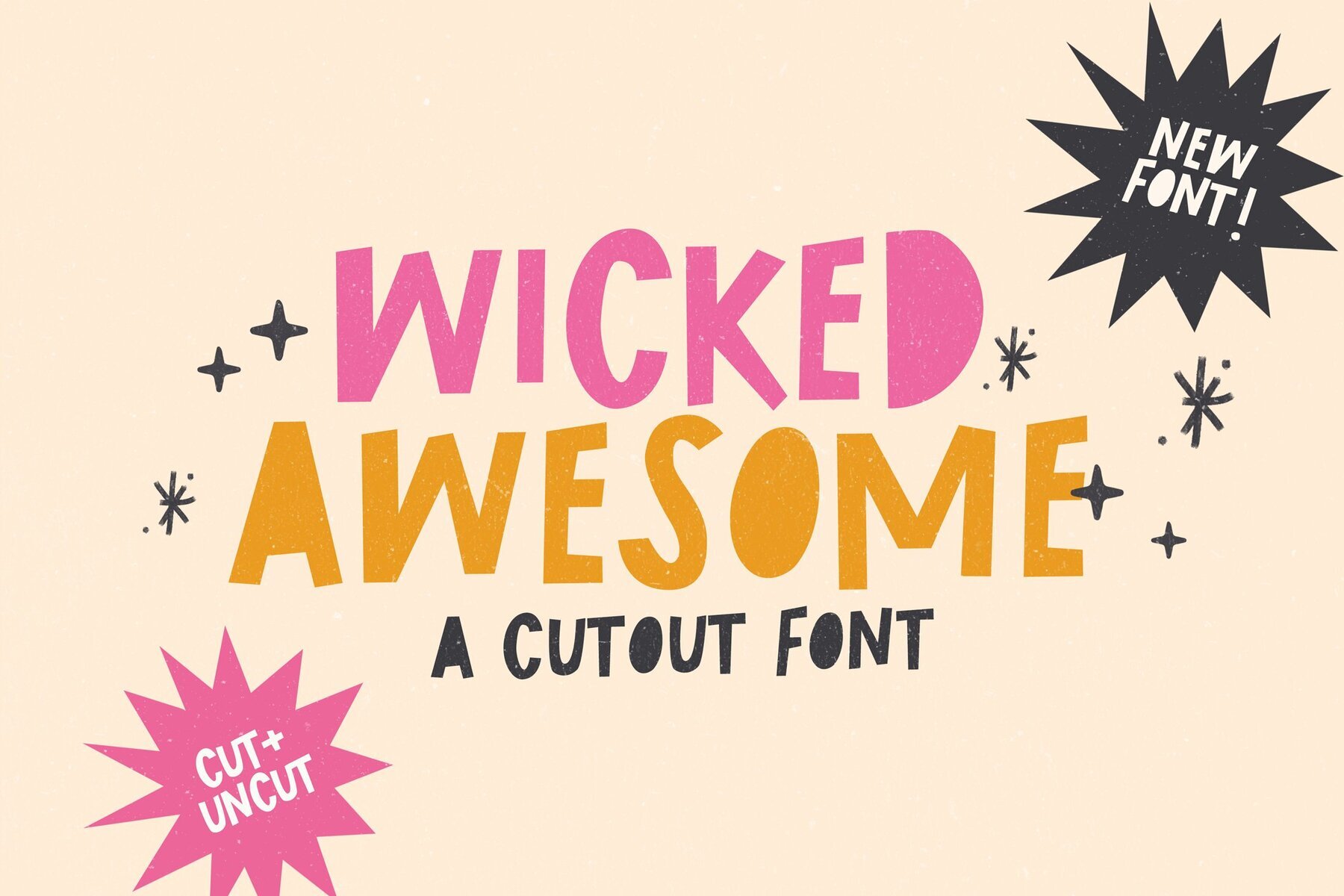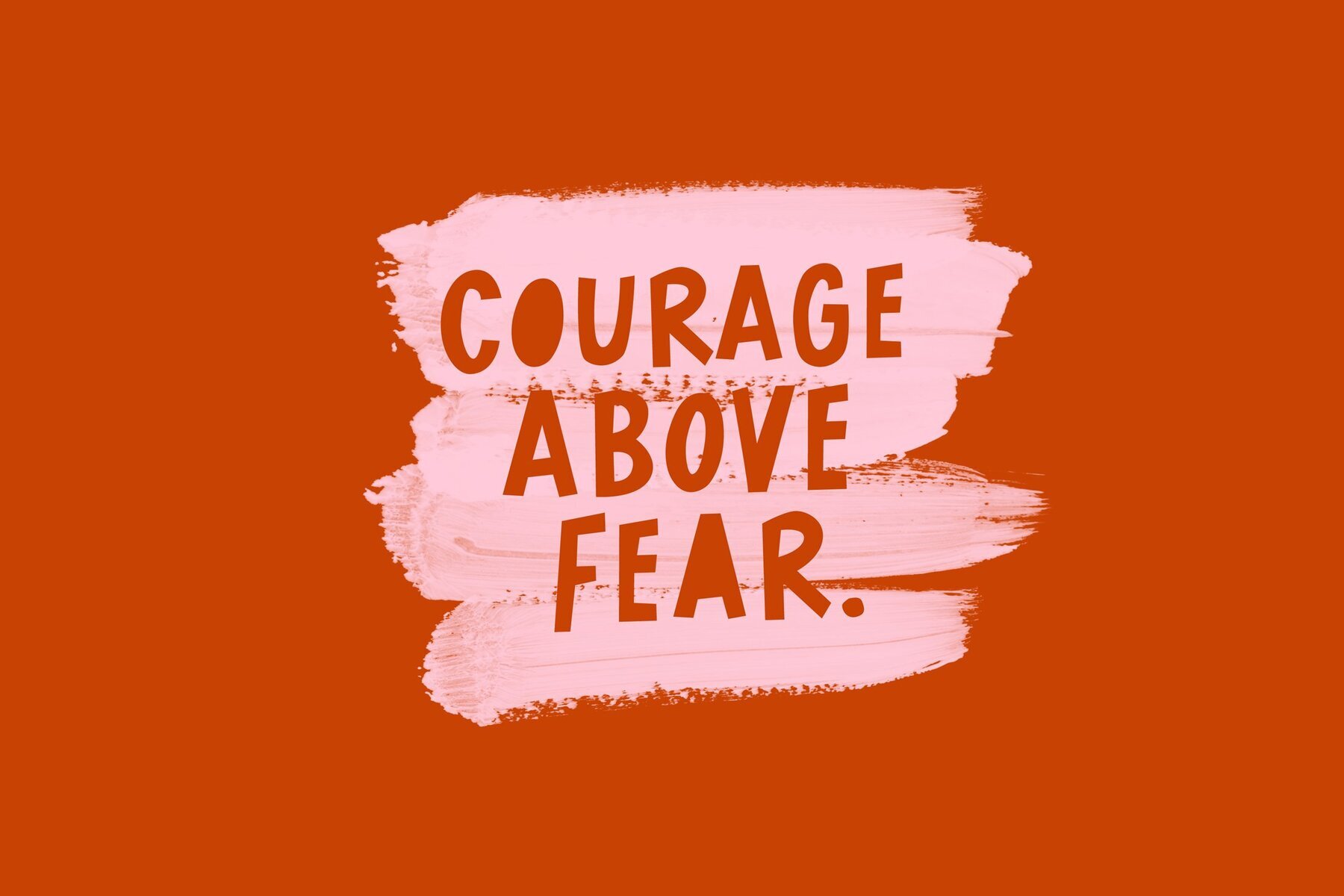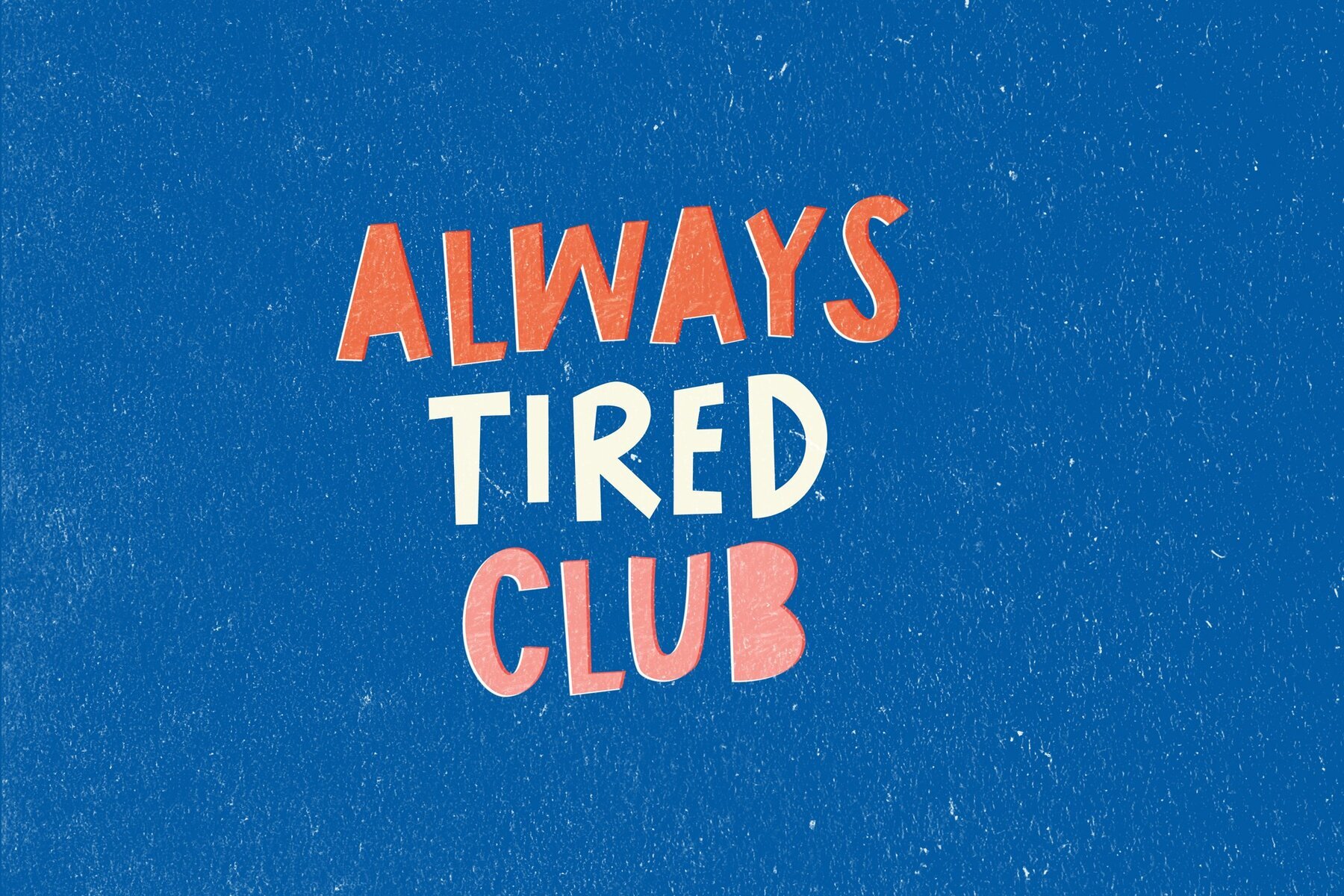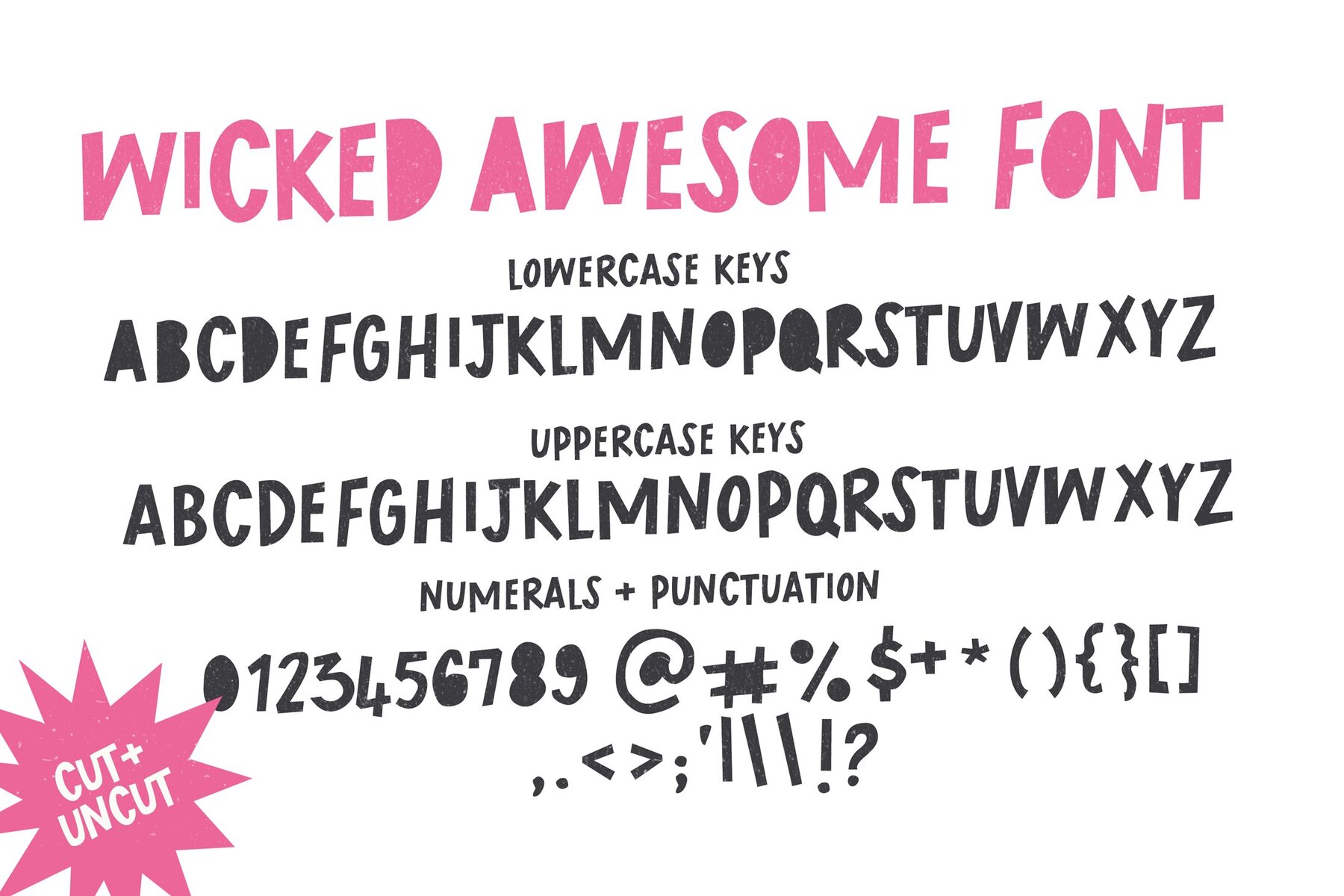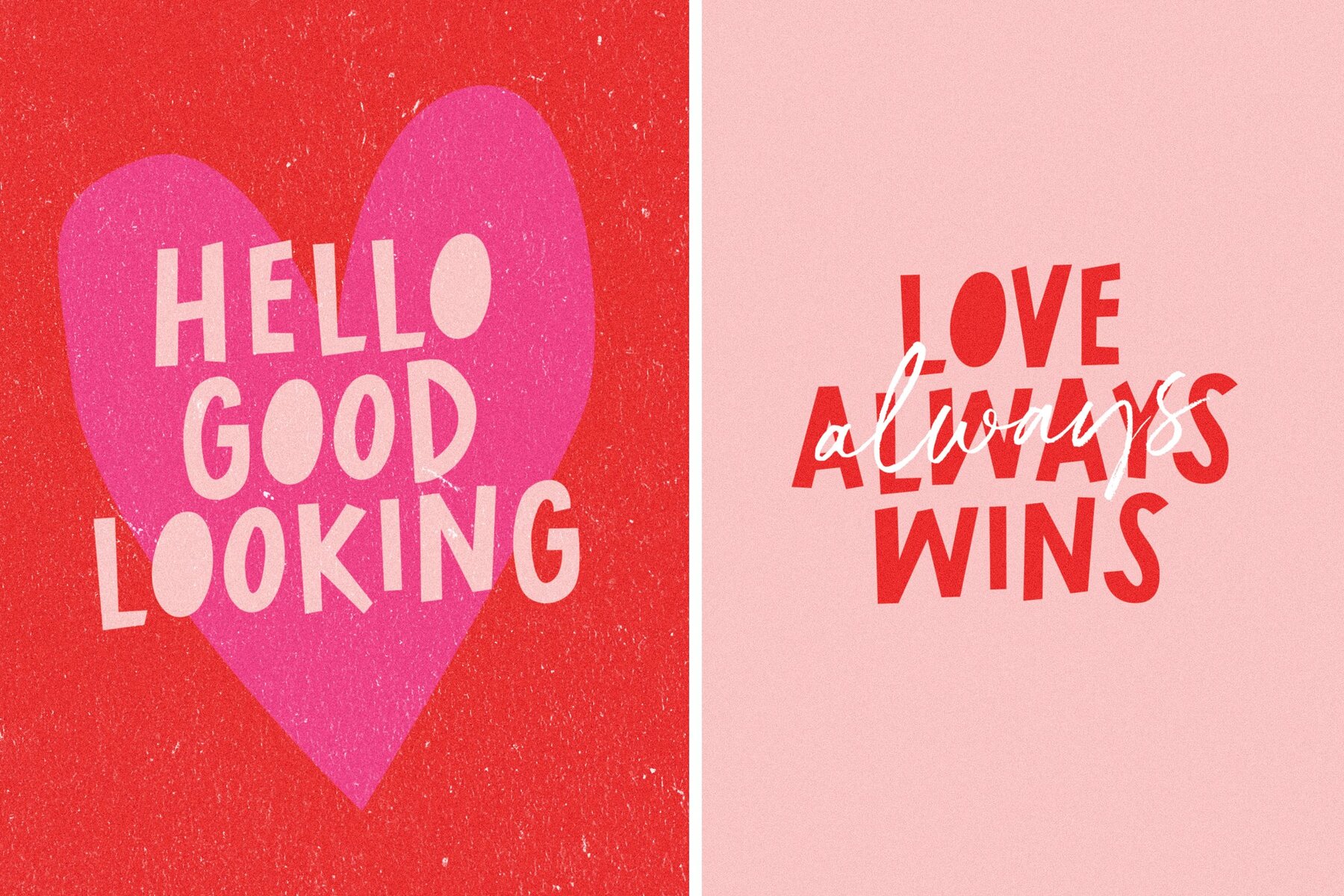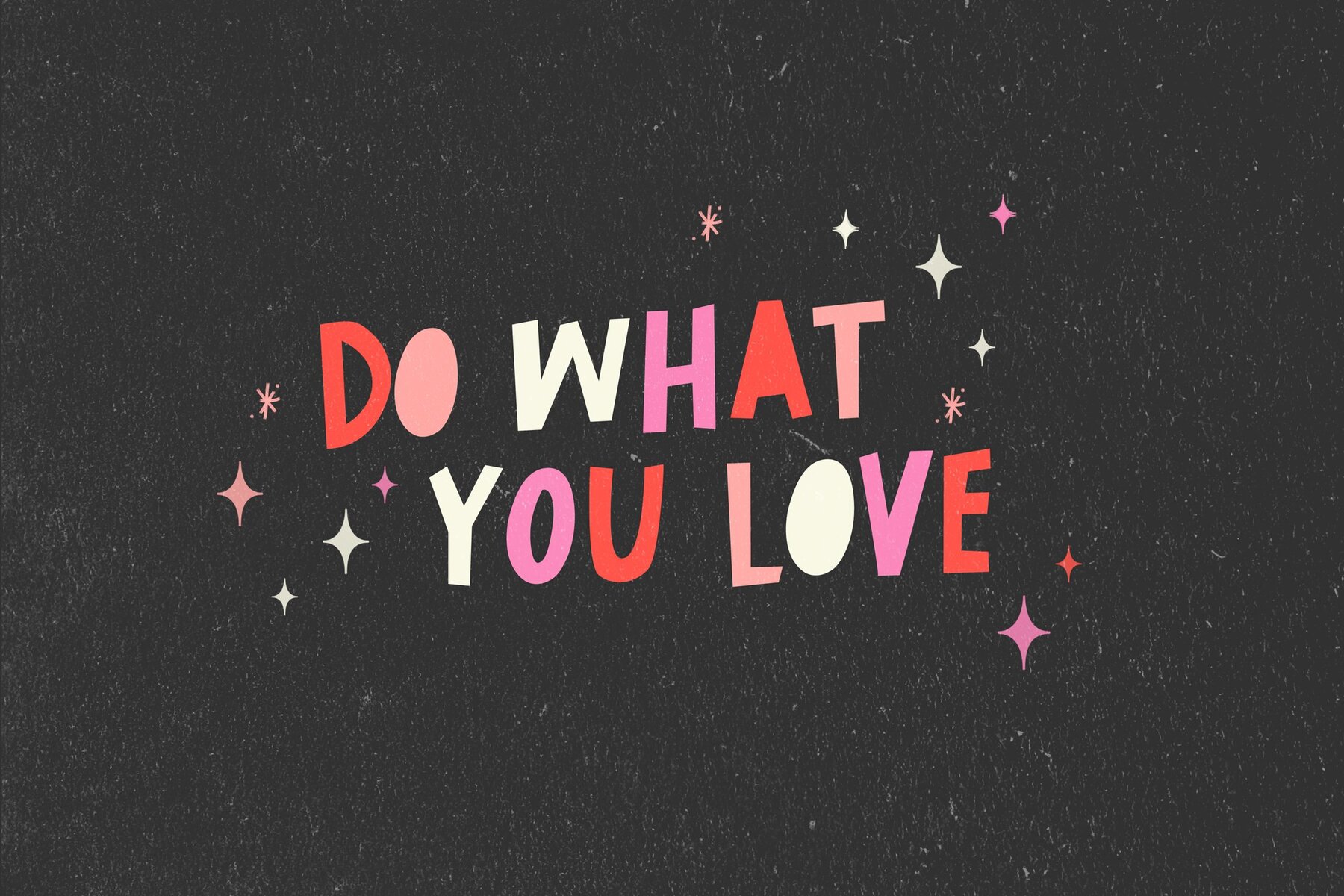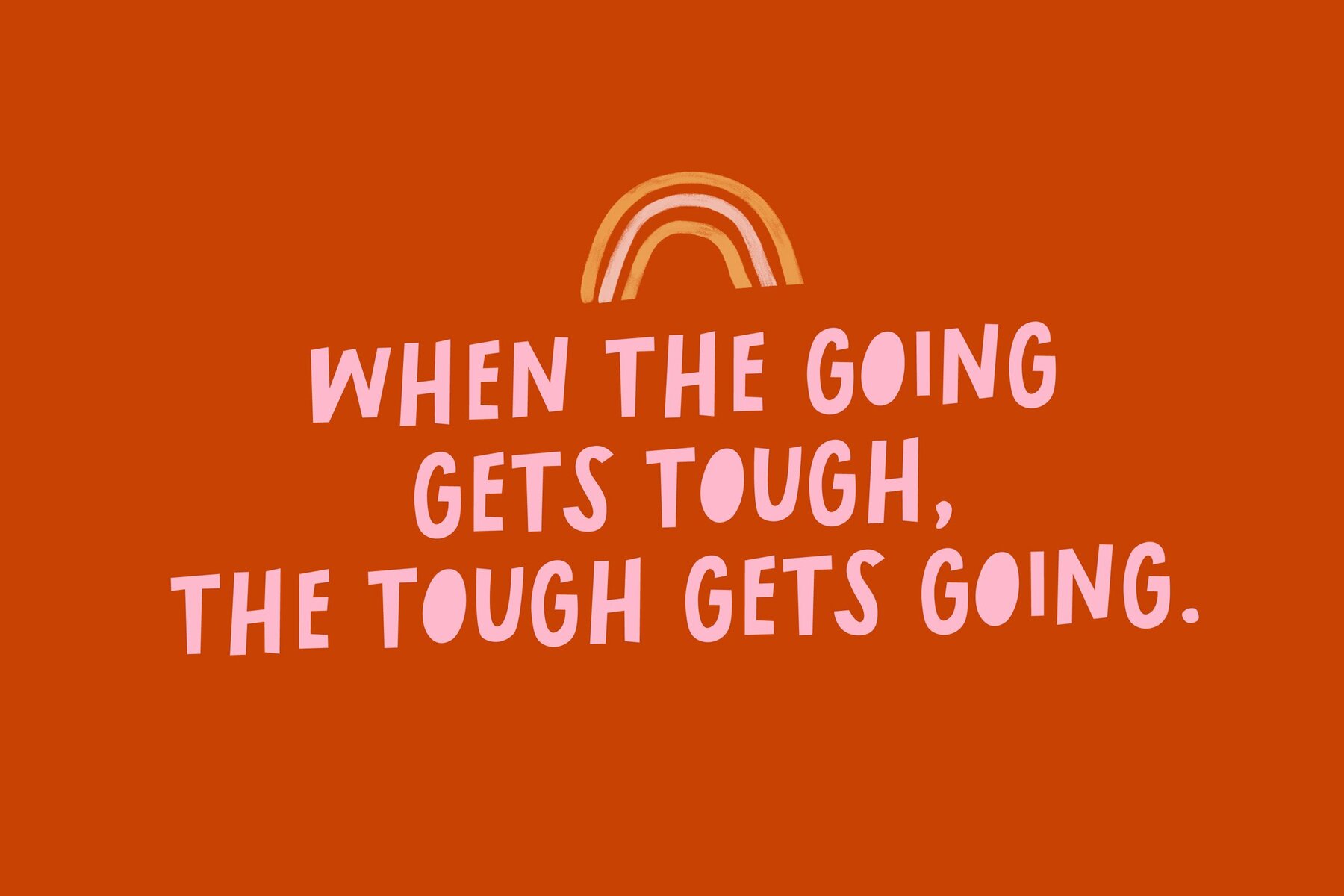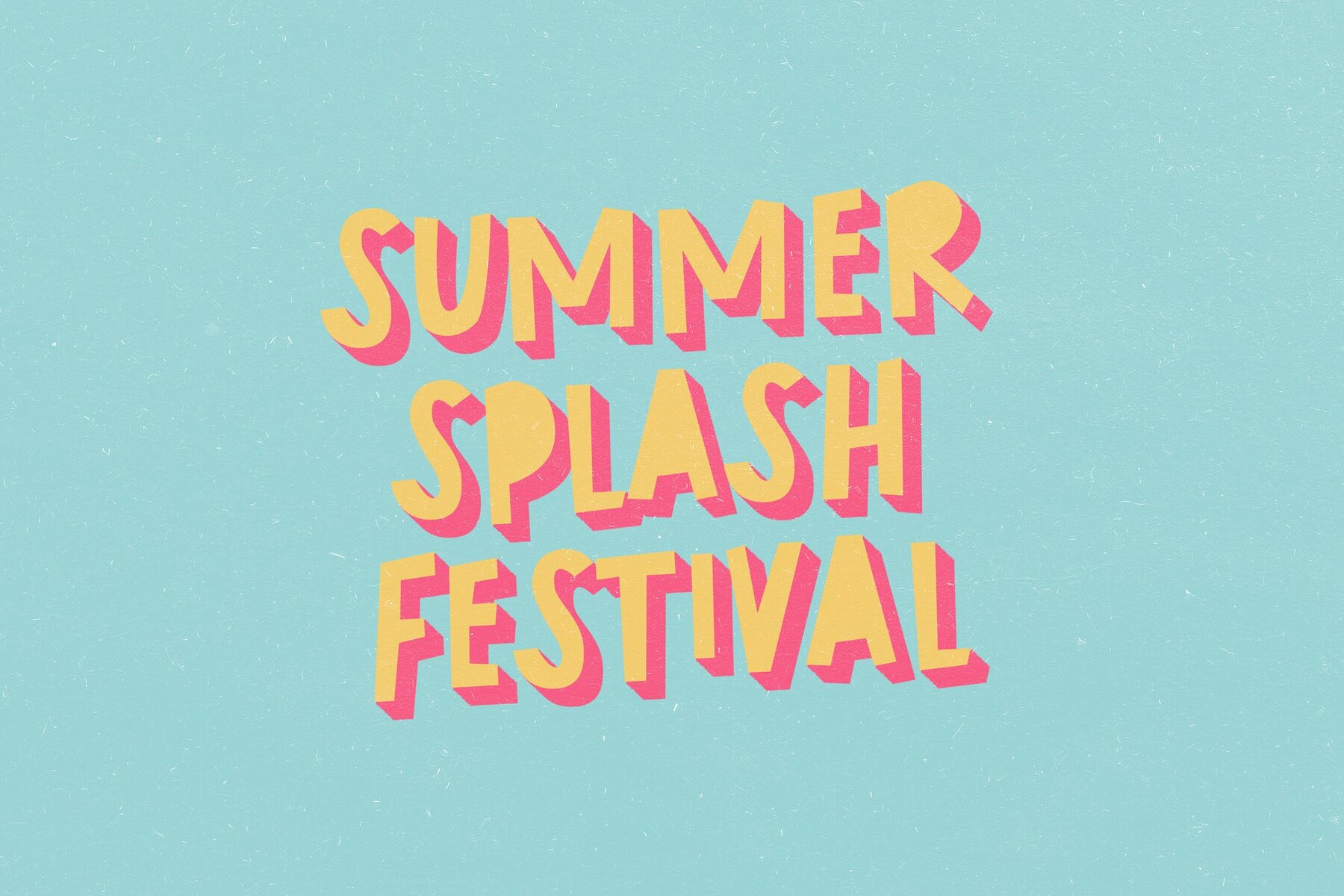
Wicked Awesome Font
Wicked Awesome Regular
Say hello to Wicked Awesome! A playful all caps cutout-style font. Lowercase letters have filled letters (A,O,B etc) and the Uppercase keys have the regular unfilled letters. Pick and choose which letters you want filled to get the look you are after :) Great for greeting cards, quotes, social media posts, posters, playful branding, and so much more!